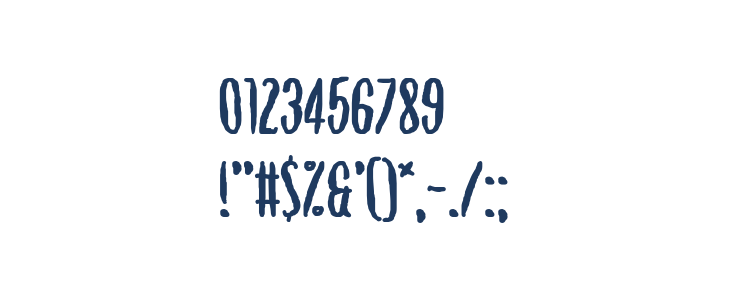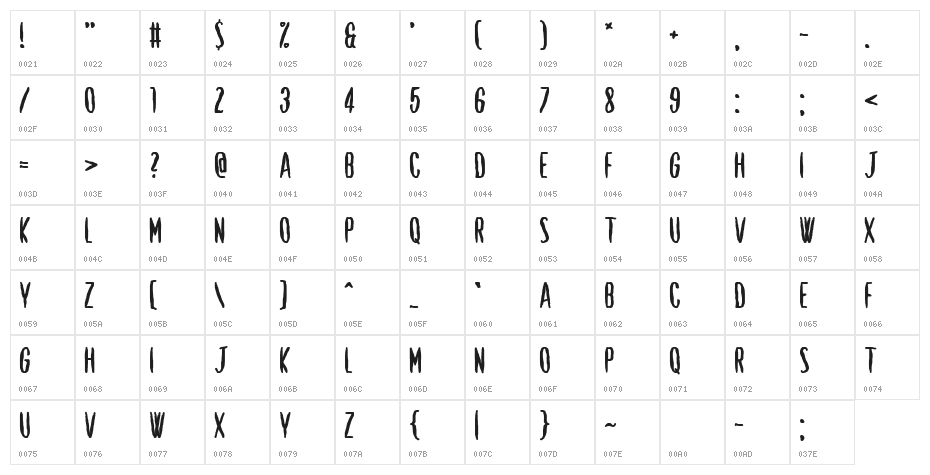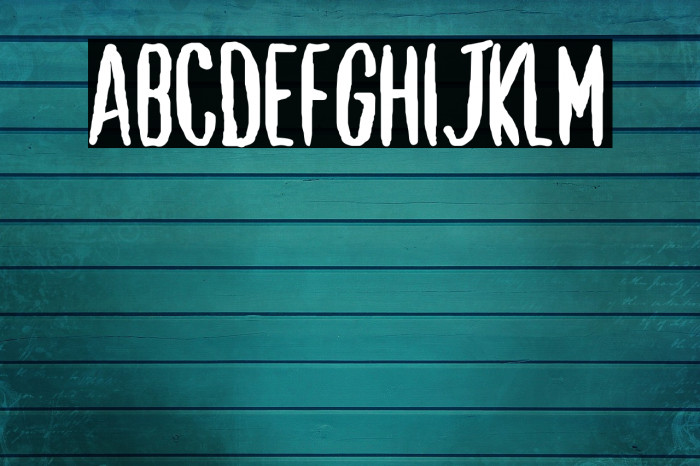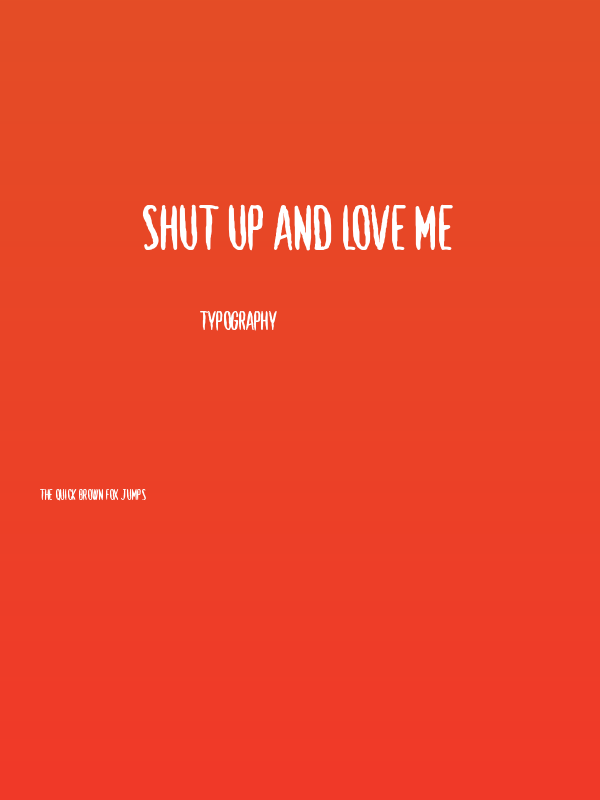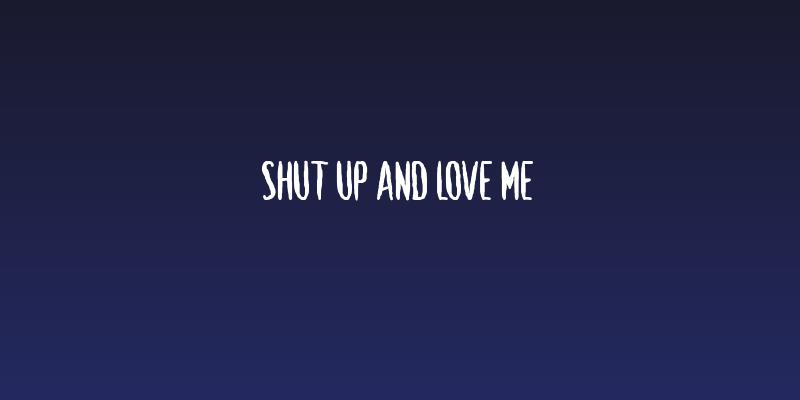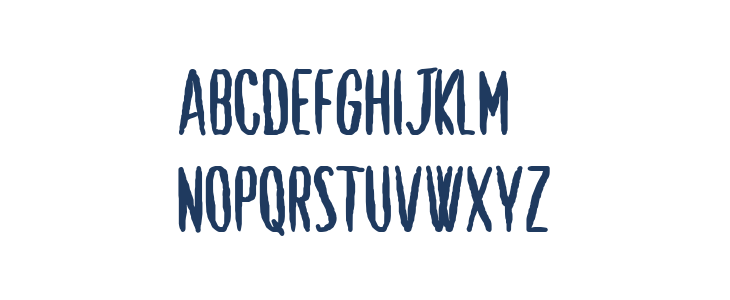
Shut Up and Love Me Font
Shut Up and Love Me Description
This font features a bold and expressive style with a hand-drawn appearance. The characters are slightly irregular, giving it a playful and artistic feel. The uppercase letters are tall and narrow, while the lowercase letters maintain a consistent height, adding to the font's unique charm. The numbers and special characters follow the same stylistic approach, ensuring a cohesive look across all text. The strokes are thick and slightly uneven, contributing to a casual and informal vibe. This font is perfect for projects that require a personal touch or a creative flair.
| Use Case | Headlines, Logos, Artistic projects |
| Proposed Projects | Ideal for posters, greeting cards, artistic projects, and branding that seeks a personal touch. |